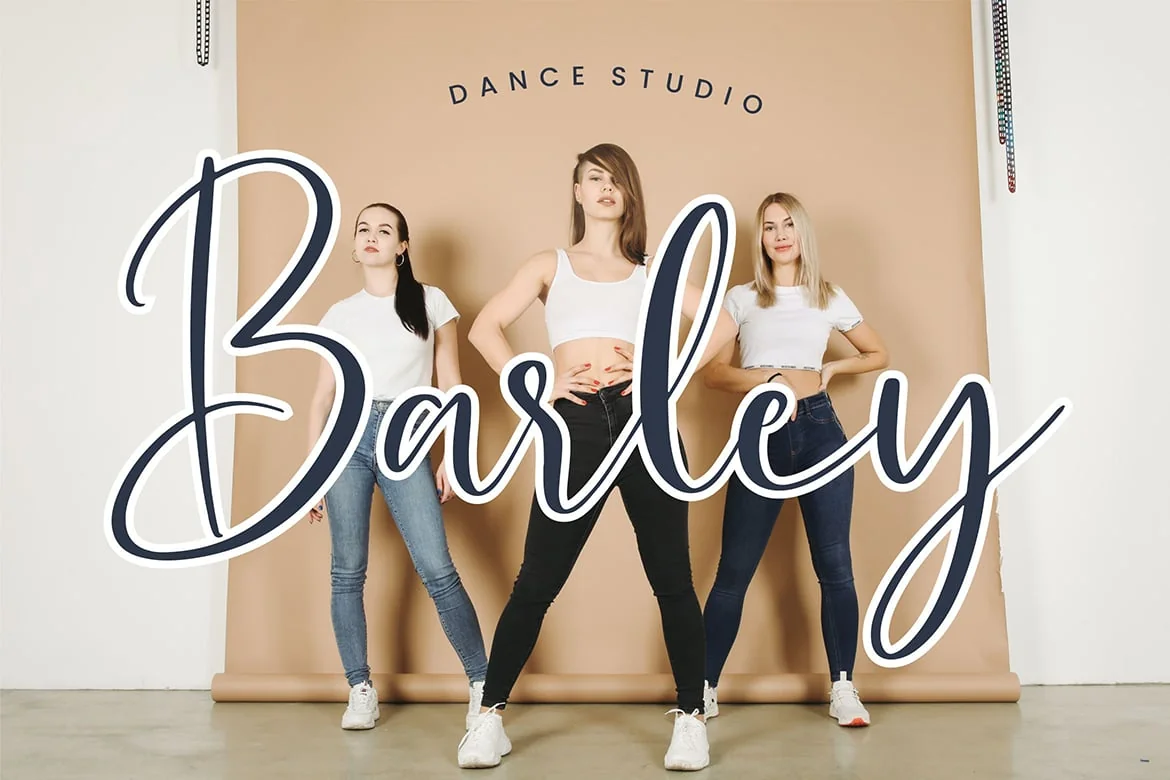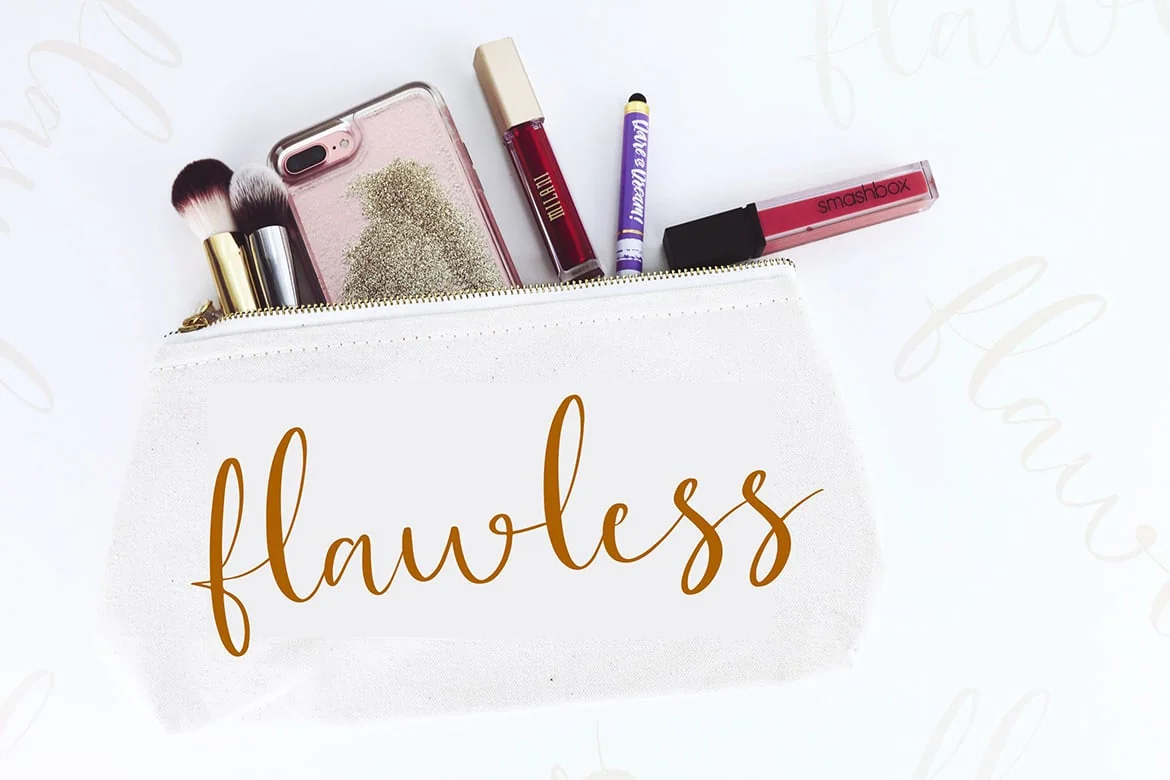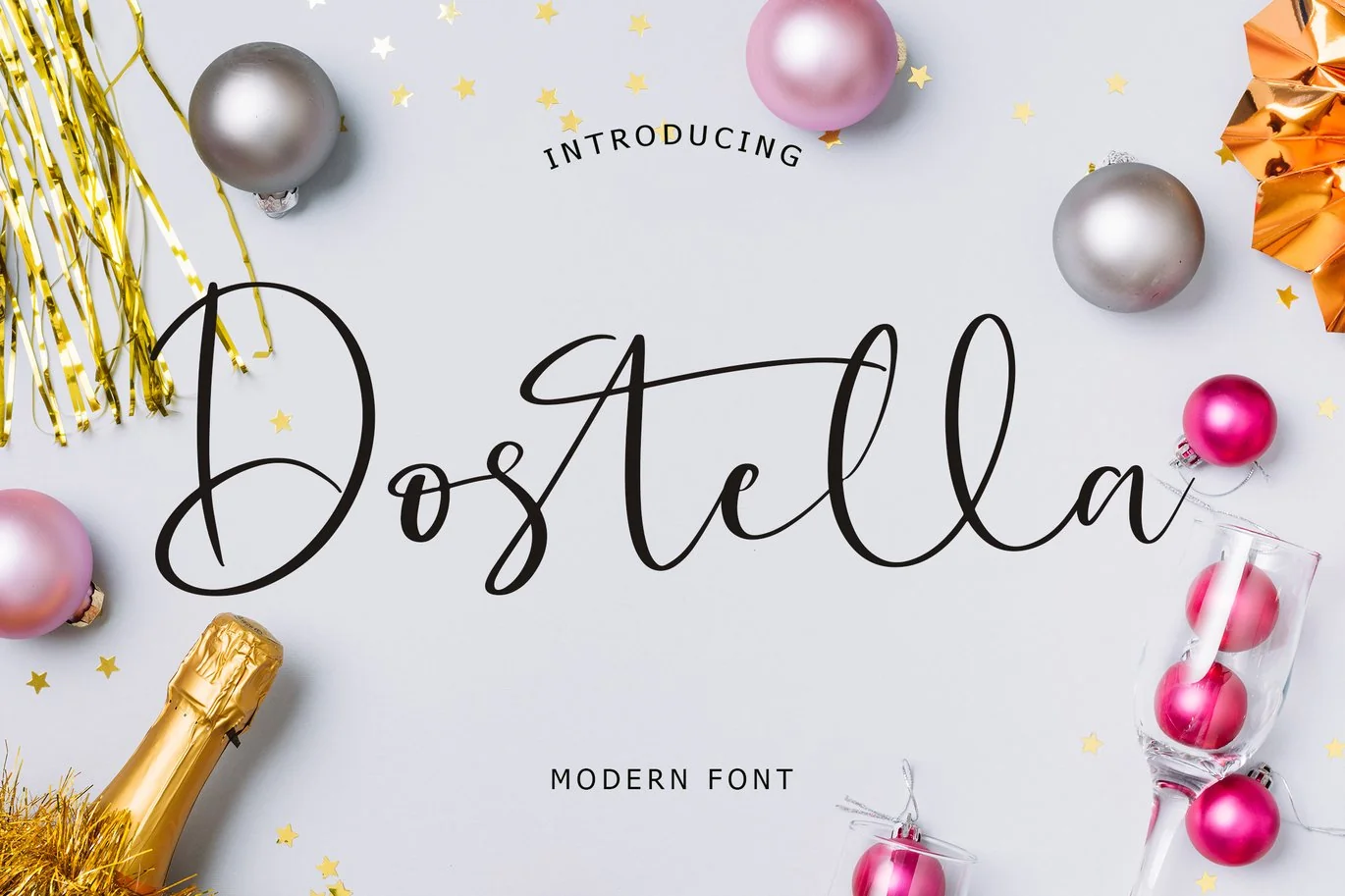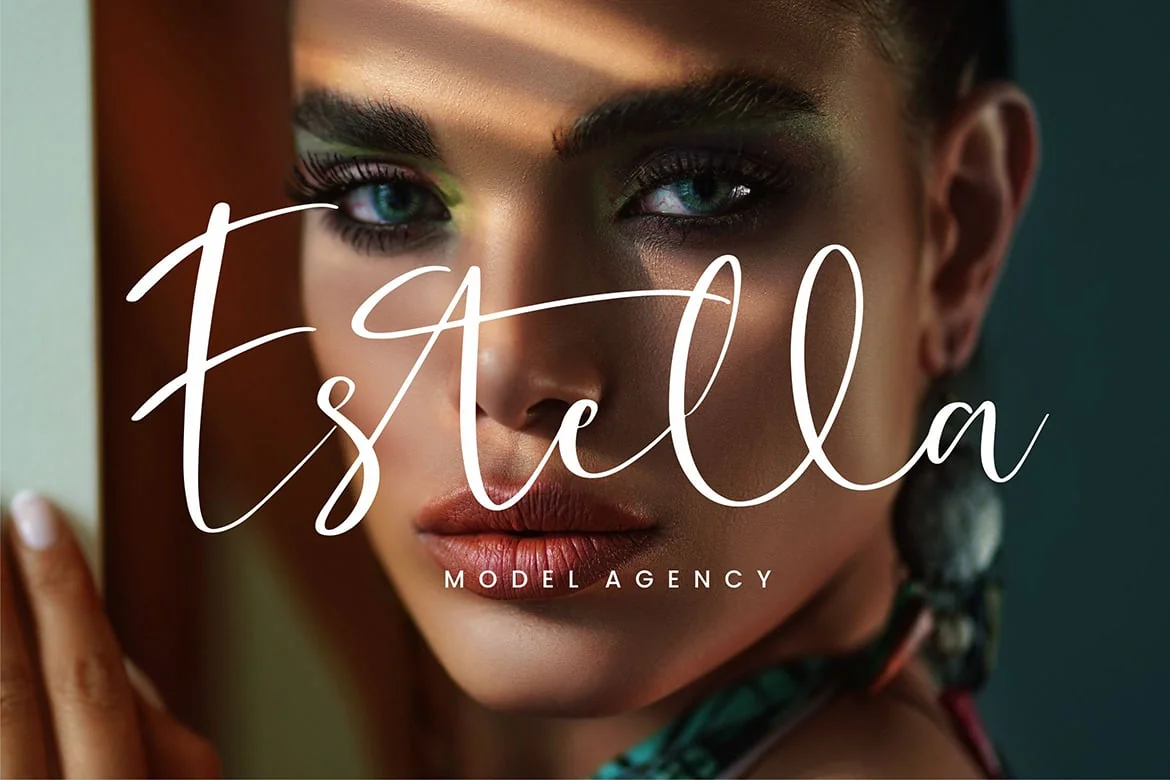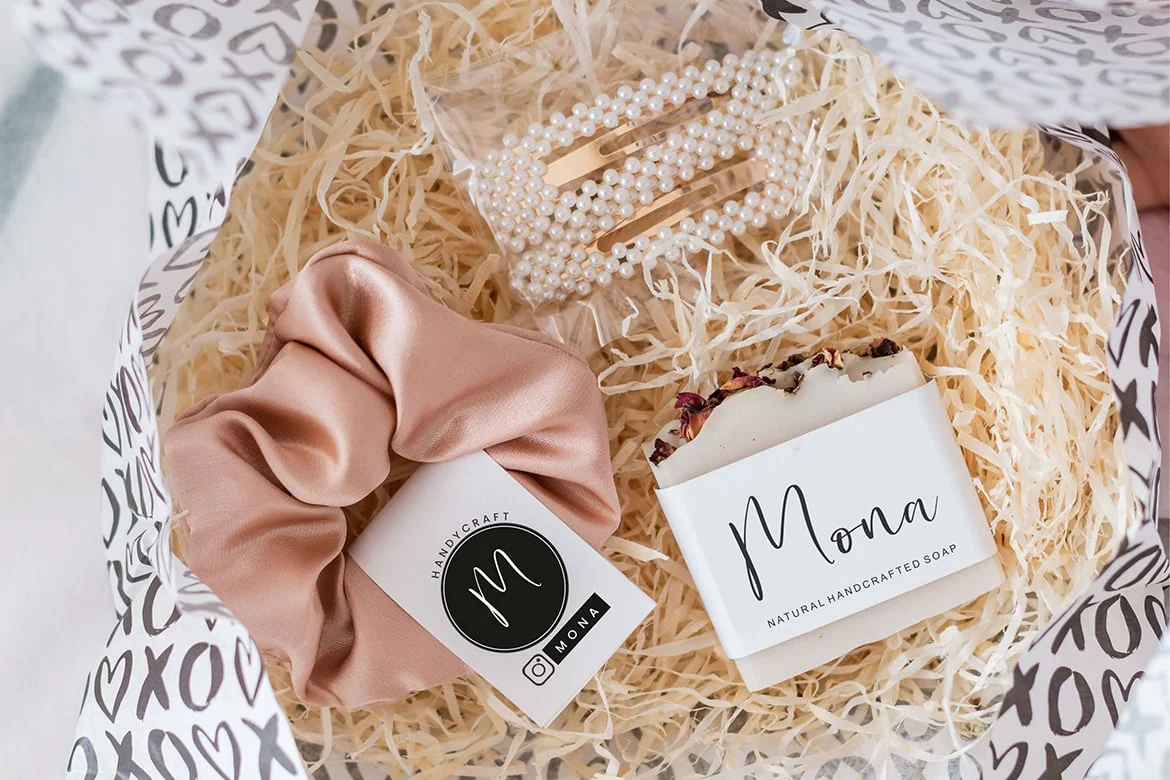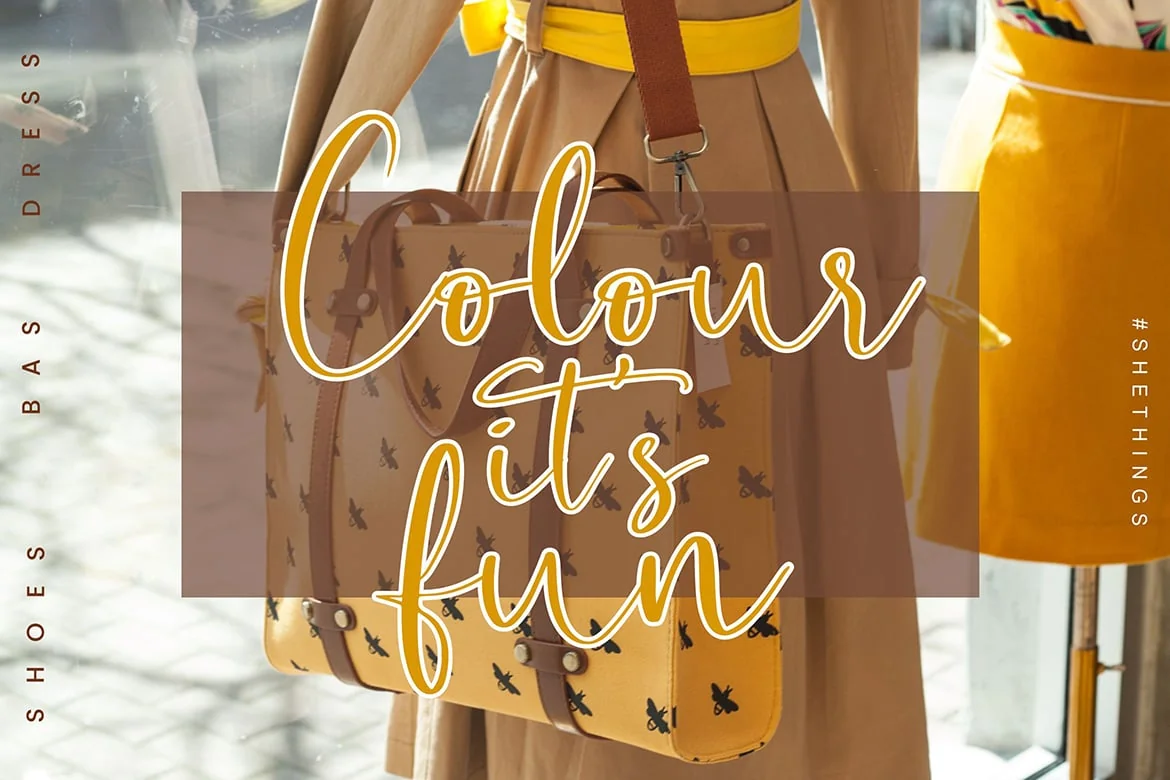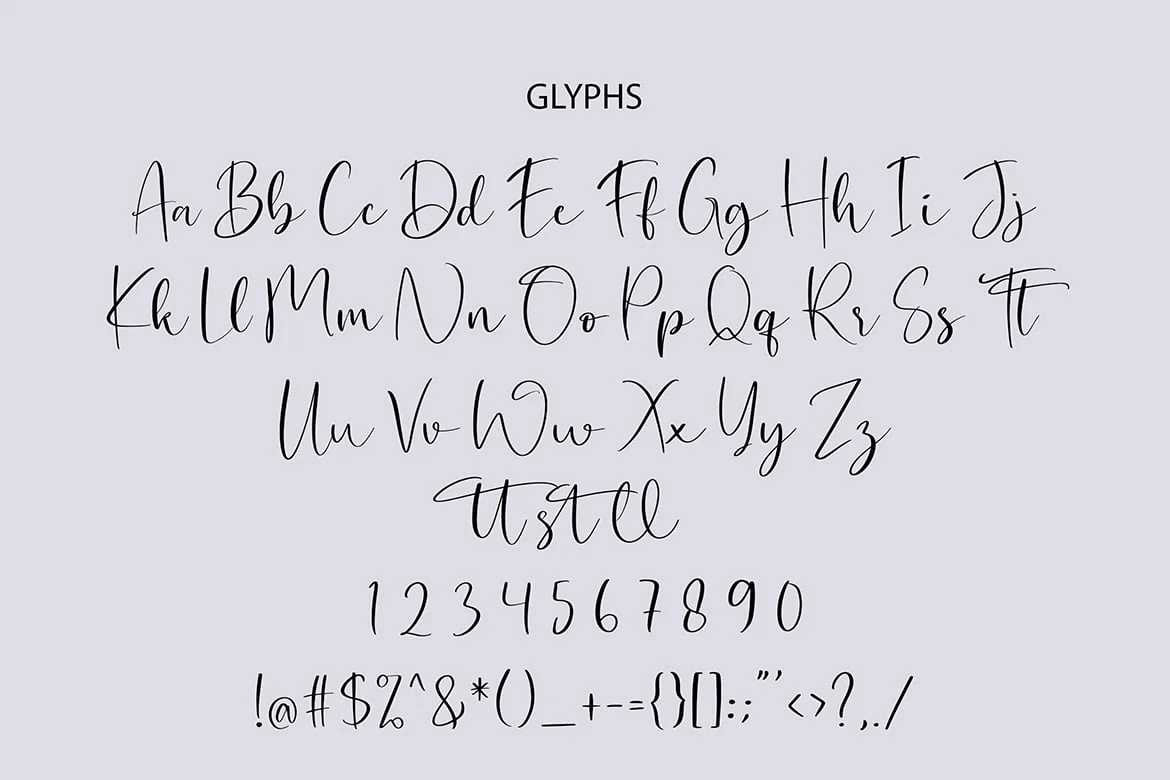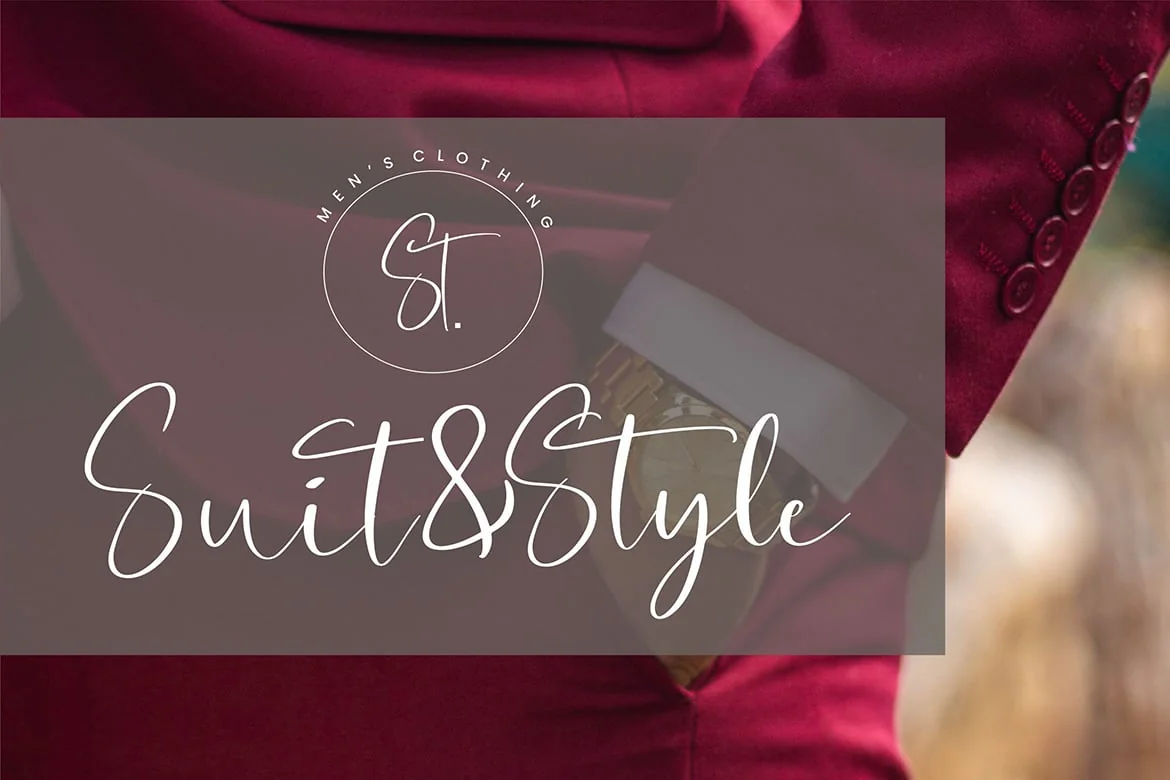
Dostella Modern Font
Dostella is a Modern Handwritten Script font can make your text appear elegant, luxurious, and modern!
Dostella is perfect for branding projects, logo, wedding designs, social media posts, advertisements, product packaging, tshirt design, product designs, label, photography, watermark, invitation, stationery and any projects.